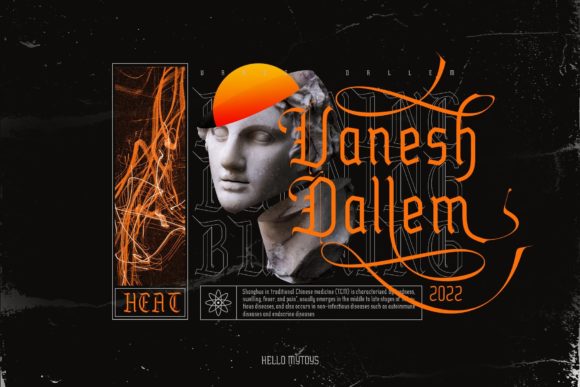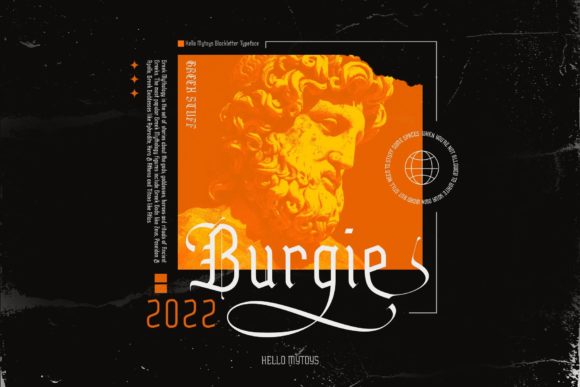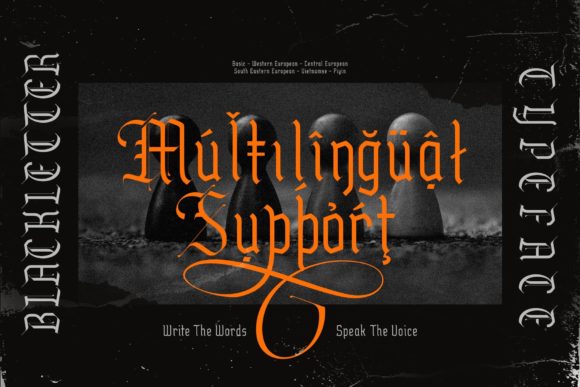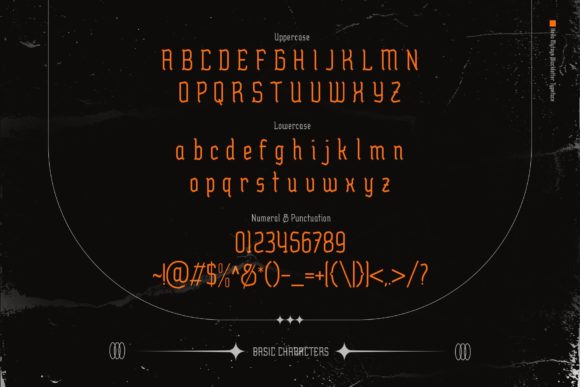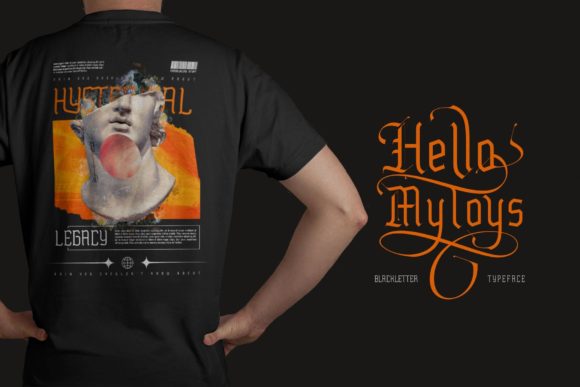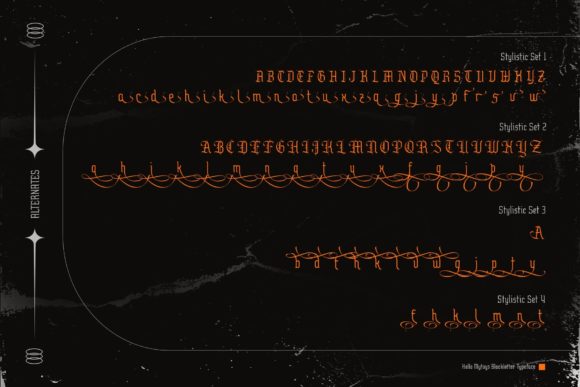
Unleash the Power of Dark Elegance with the Hello Mytoys Blackletter Font
As a designer, there’s nothing quite like the thrill of crafting a project that captures the essence of a particular aesthetic. For me, that moment came when I was tasked with creating a music album cover for a gothic rock band. The brief was to evoke a sense of mystery and darkness, and I knew exactly the font to use: the Hello Mytoys Blackletter Font.
This striking font is inspired by the classic Blackletter typeface, but with a modern twist that makes it perfect for designers looking to add a touch of sophistication to their projects. With its strong, unique characters and extensive range of alternative options, the Hello Mytoys Blackletter Font is a valuable asset for any designer working on dark or strong-themed projects.
Hello Mytoys Blackletter Font Key Features
- Font Style: Blackletter, a calligraphic script font with a distinctive, ornate design.
- Font Size: 20,000+ glyphs, providing extensive language support, including Latin, Cyrillic, and Greek scripts.
- Unique Characteristics: Features intricate, hand-drawn lettering with swashes, flourishes, and ornaments, adding a touch of elegance and sophistication to any design.
Hello Mytoys Blackletter Font Review
As a designer, I was excited to dive into the Hello Mytoys Blackletter Font. Overall, I was impressed with its unique aesthetic and potential for creative projects.
- The font’s bold, blackletter style is perfect for creating a dramatic and mysterious atmosphere in designs.
- The font’s varied line weights and thicknesses allow for a range of creative possibilities, from subtle to bold typography.
- The font’s unique letterforms and flourishes add a touch of elegance and sophistication to any design.
- The font’s limited character set may be a challenge for designers who need to use it for extensive text-based projects.
- The font’s bold style may not be suitable for all design applications, such as body text or small-scale typography.
Overall, I think the Hello Mytoys Blackletter Font is a great addition to any designer’s toolkit, especially for projects that require a dramatic or luxurious feel. While it may have some limitations, its unique style and creative possibilities make it a great choice for designers looking to add some flair to their work.
The Hello Mytoys Blackletter Font is ideal for creating dramatic and eye-catching designs, such as:
1. Gothic-themed posters and flyers.
2. Horror movie or Halloween-themed invitations.
3. Steampunk or sci-fi inspired artwork.